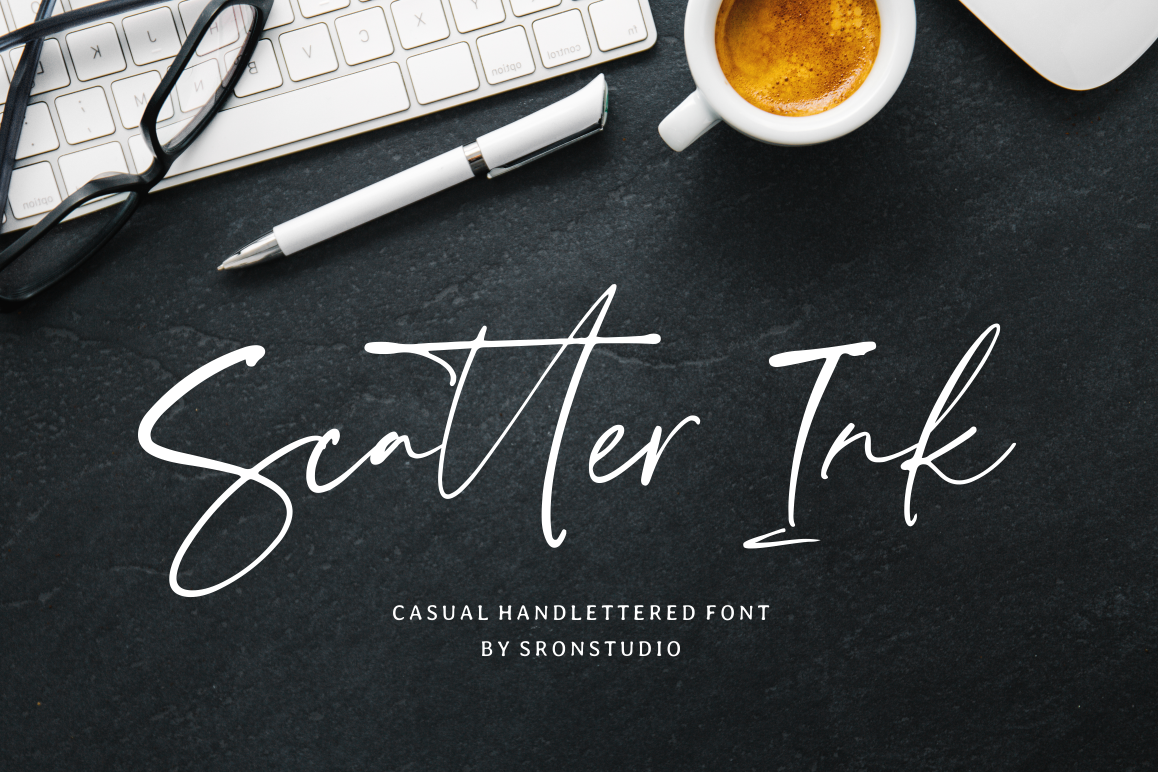
Scatter Ink | Handlettered Font
Scatter ink
Introducing Scatter Ink - Casual Handlettered Font
Scatter Ink is a natural handwritten font, this font Is perfect for logo, invitation, stationery, wedding designs, social media posts, advertisements, product packaging, product designs, label, photography, watermark, special events or anything.
Scatter Ink comes with full set of uppercase and lowercase letters, ligatures, multilingual symbols, numerals, punctuation.